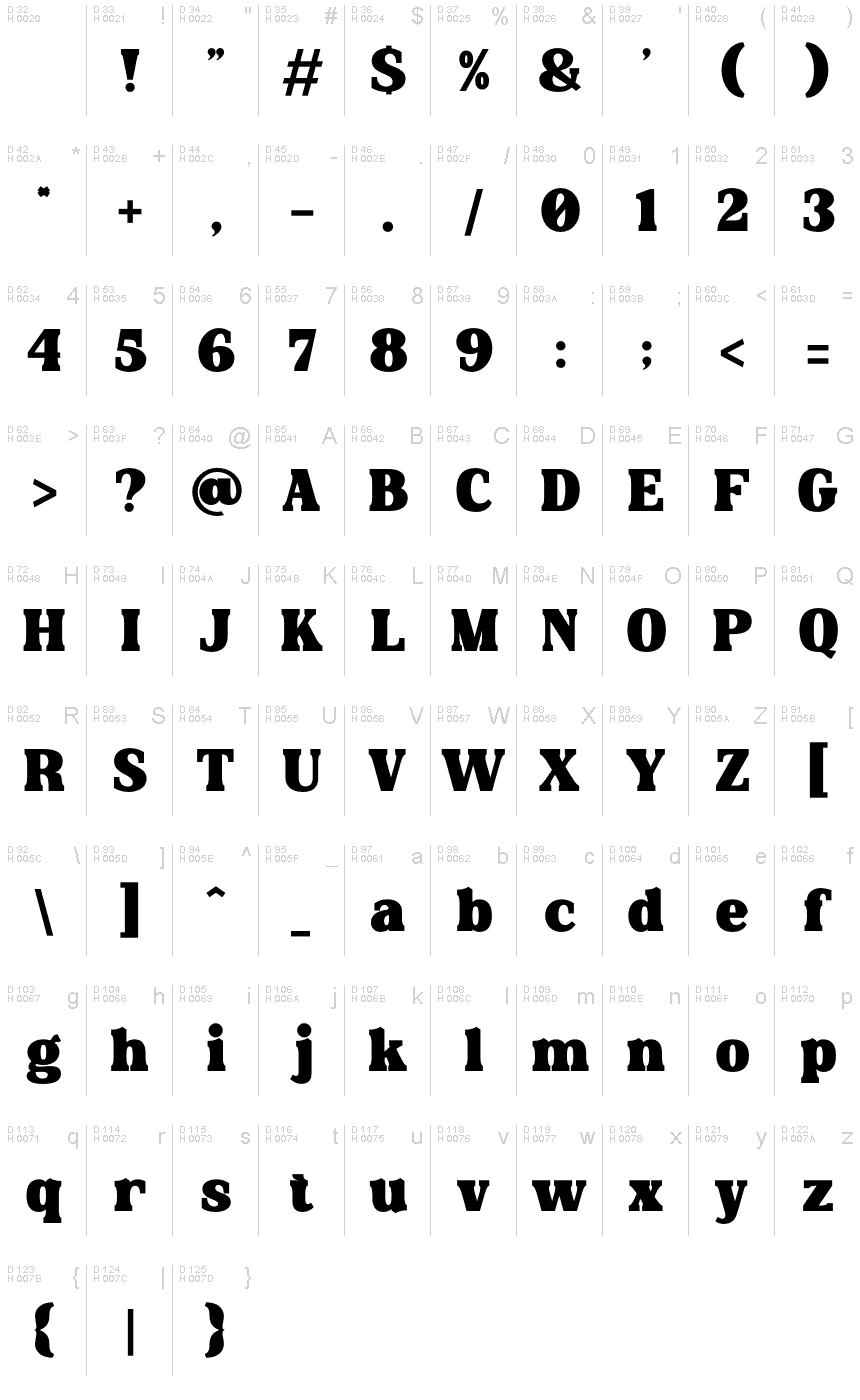
Cliken
Cliken, a creation by BrandSemut, is a modern serif font that exudes confidence and sophistication.
With its bold weight, this typeface demands attention and is perfect for headlines and titles that need to make a powerful statement. Its clean lines and sleek curves give it a contemporary feel, making it suitable for fashion magazines or luxury branding projects. Cliken's versatility also extends to editorial layouts, where it brings elegance to long-form articles.
Whether used in print or digital media, this extra-bold font adds an element of refinement to any design.